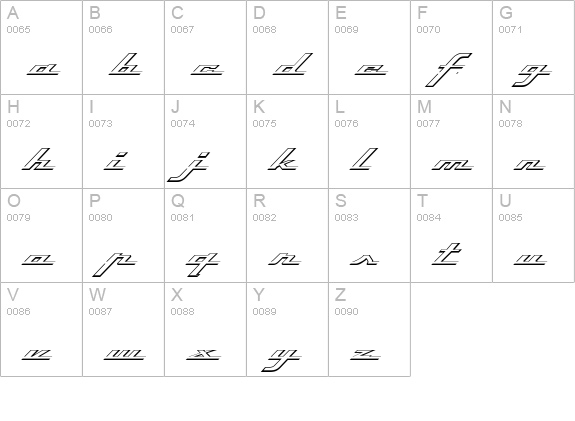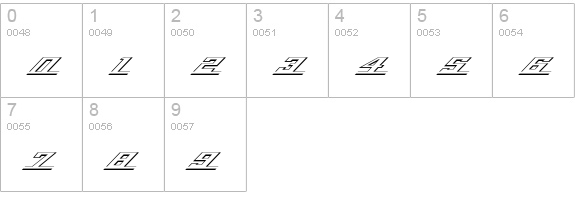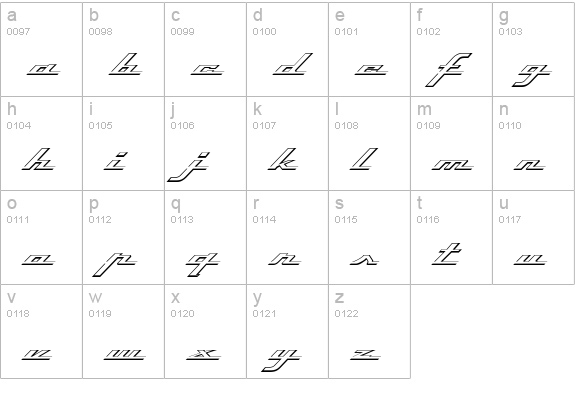
Top Speed Outline Font Details
Top Speed Outline font is a sleek and modern typeface that exudes speed and momentum. With its sharp angles and bold lines, this font is perfect for designs that need to convey a sense of movement and energy. The outline style adds an extra layer of visual interest, making it stand out from other fonts. This font is not only visually appealing, but it is also highly versatile. It can be used for a wide range of design projects, such as logos, posters, banners, and more. Whether you are working on a sports-related design or simply want to add a touch of dynamism to your project, Top Speed Outline font is the perfect choice. What makes this font even more attractive is the fact that it is available for free. That's right, you can download this font for free at FontsMarket.com. This means that you can use it in your personal and commercial projects without any restrictions or limitations. It's a great opportunity to enhance your designs without breaking the bank. The ease of use and flexibility of Top Speed Outline font make it a favorite among designers of all levels of experience. Whether you are a seasoned professional or just starting out, this font will help you achieve the desired impact in your designs. Its clean and legible characters ensure that your message is conveyed clearly, while its unique style sets it apart from other fonts. So, if you are looking for a font that combines speed, style, and affordability, look no further than Top Speed Outline font. Download it for free at FontsMarket.com and unlock a world of creative possibilities. Let your designs zoom past the competition with this eye-catching and dynamic font.